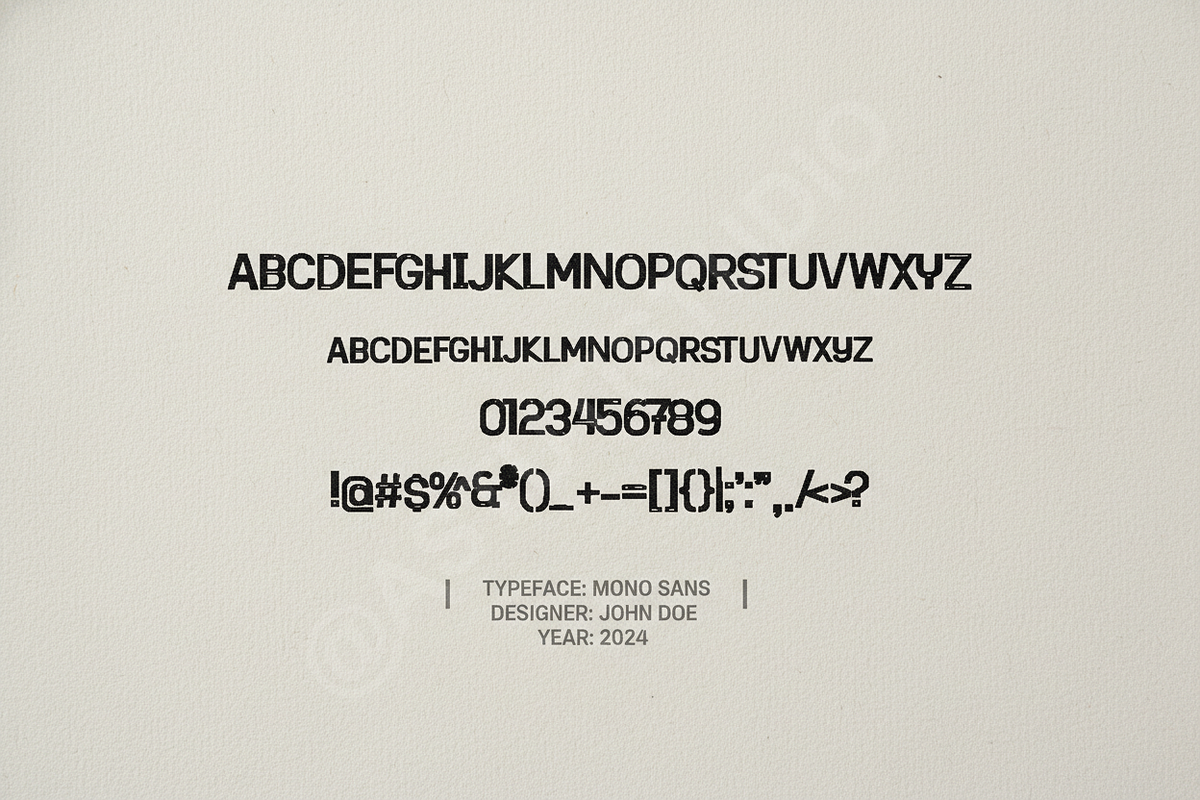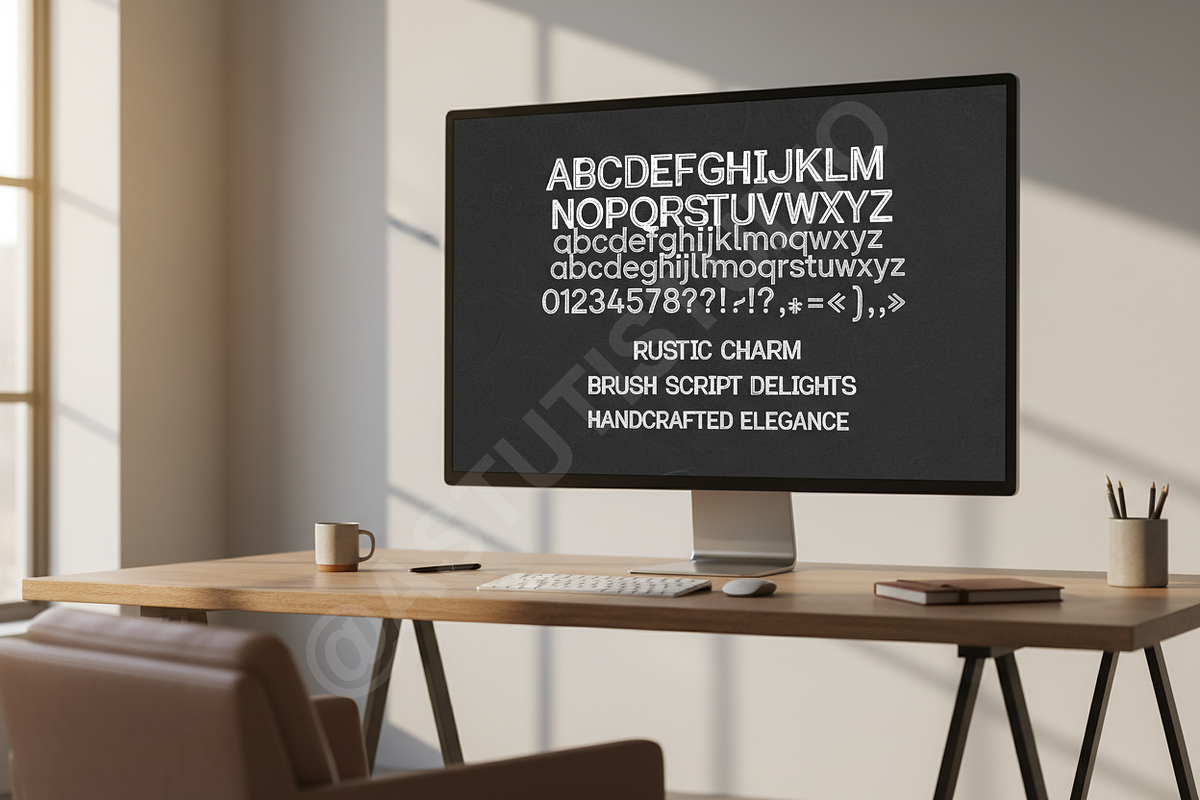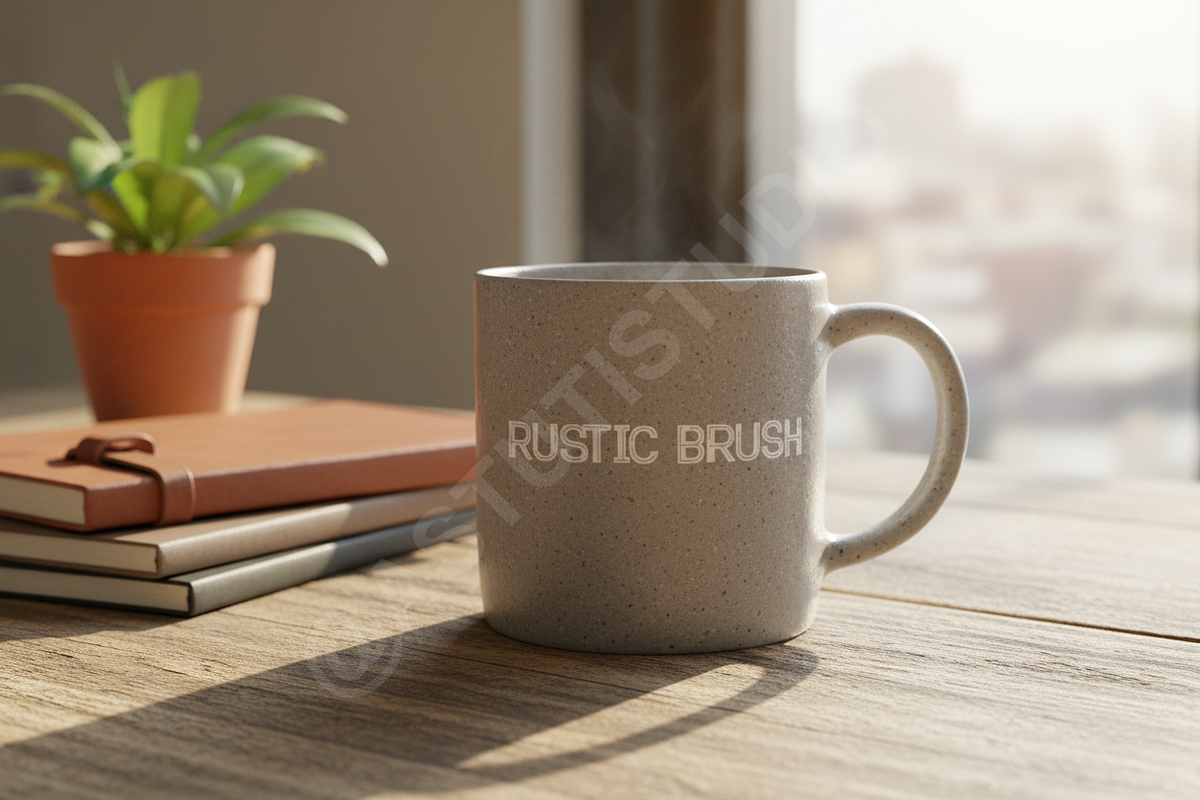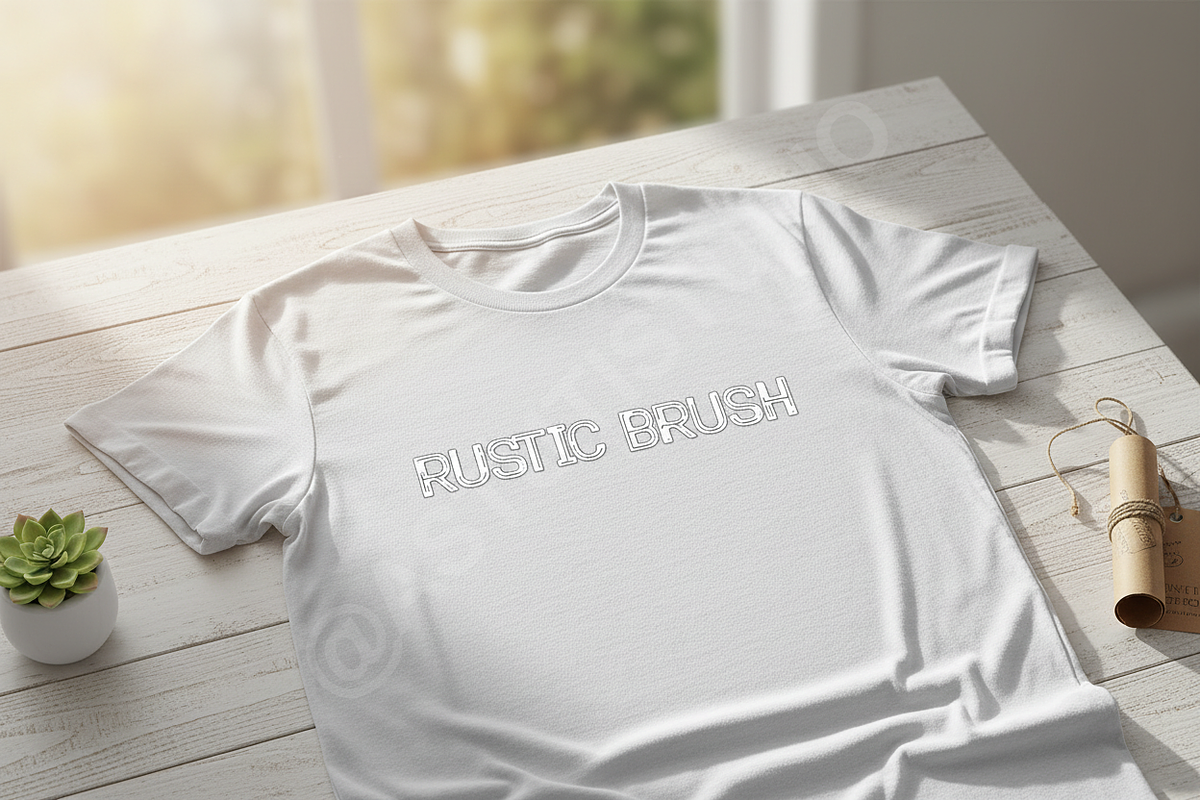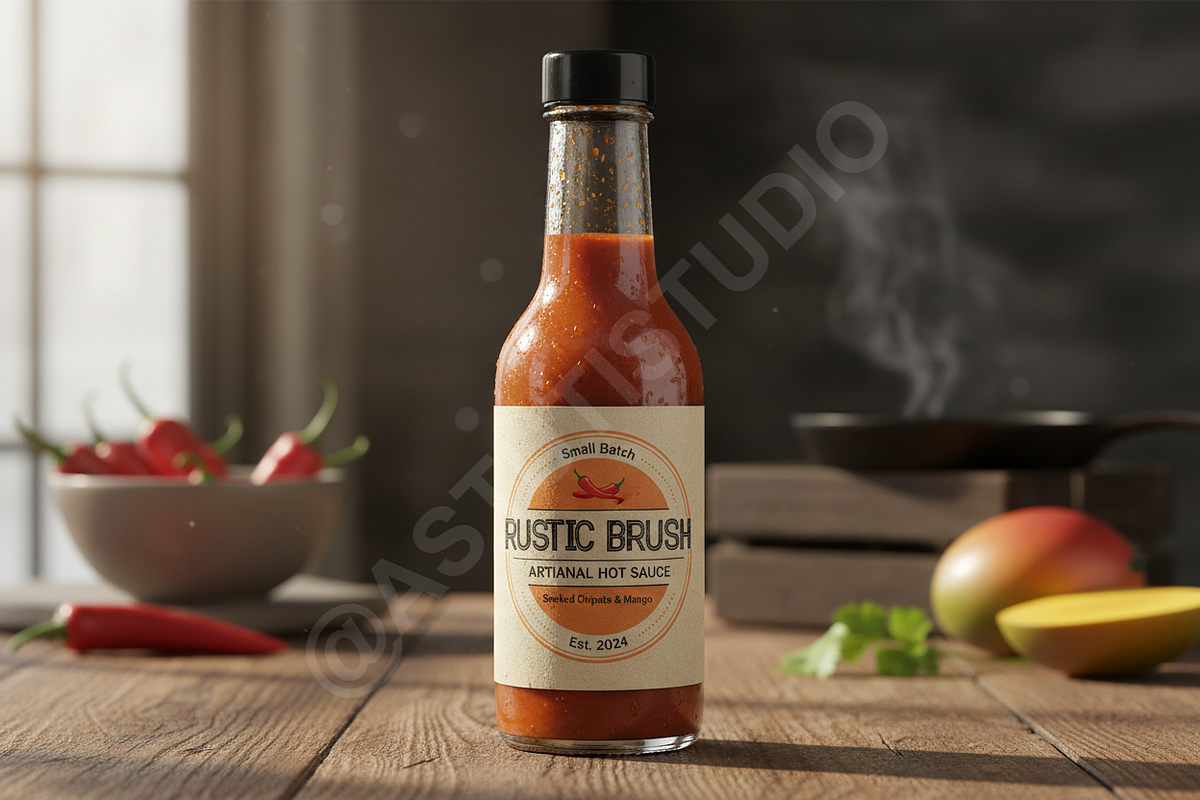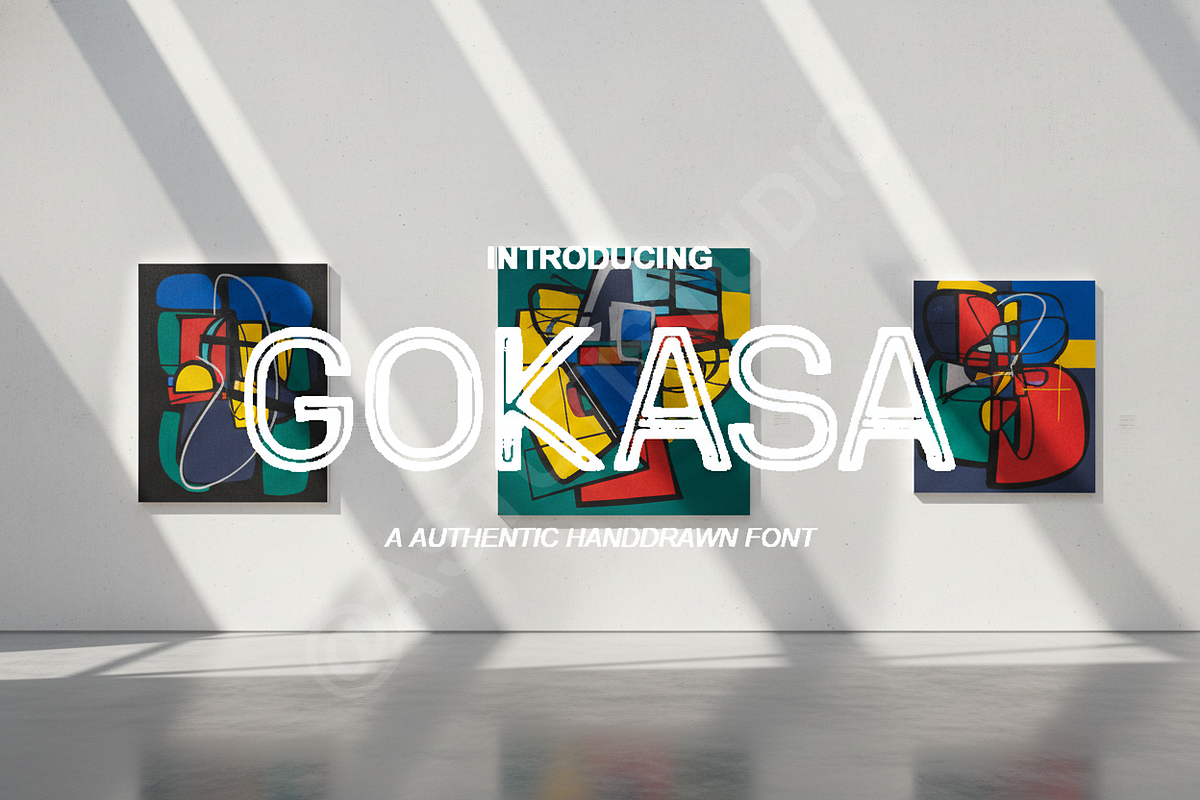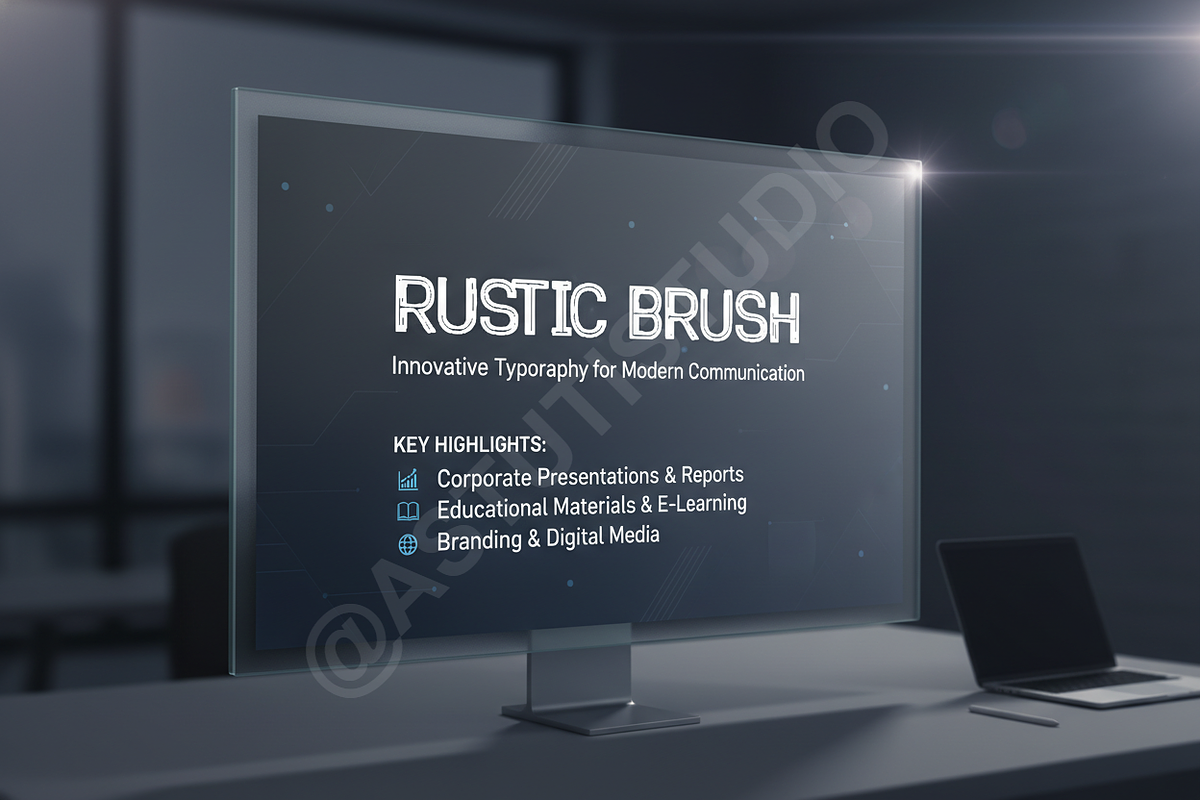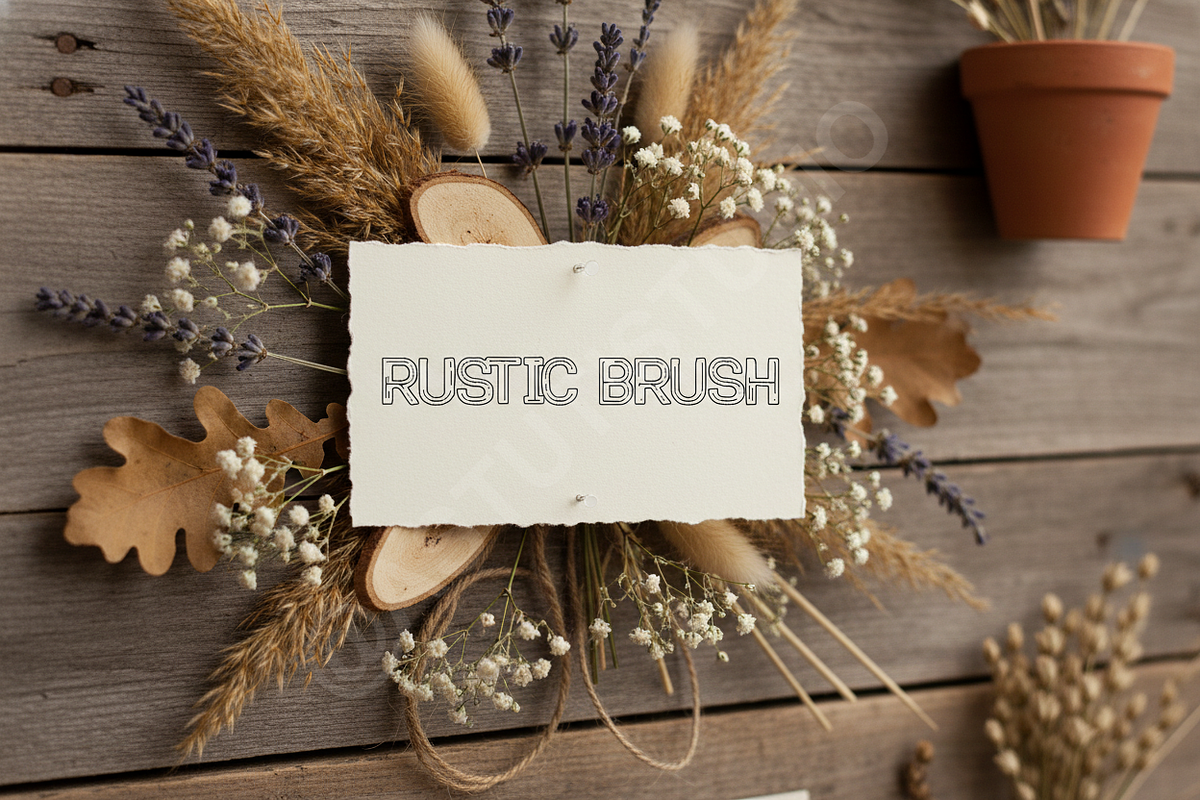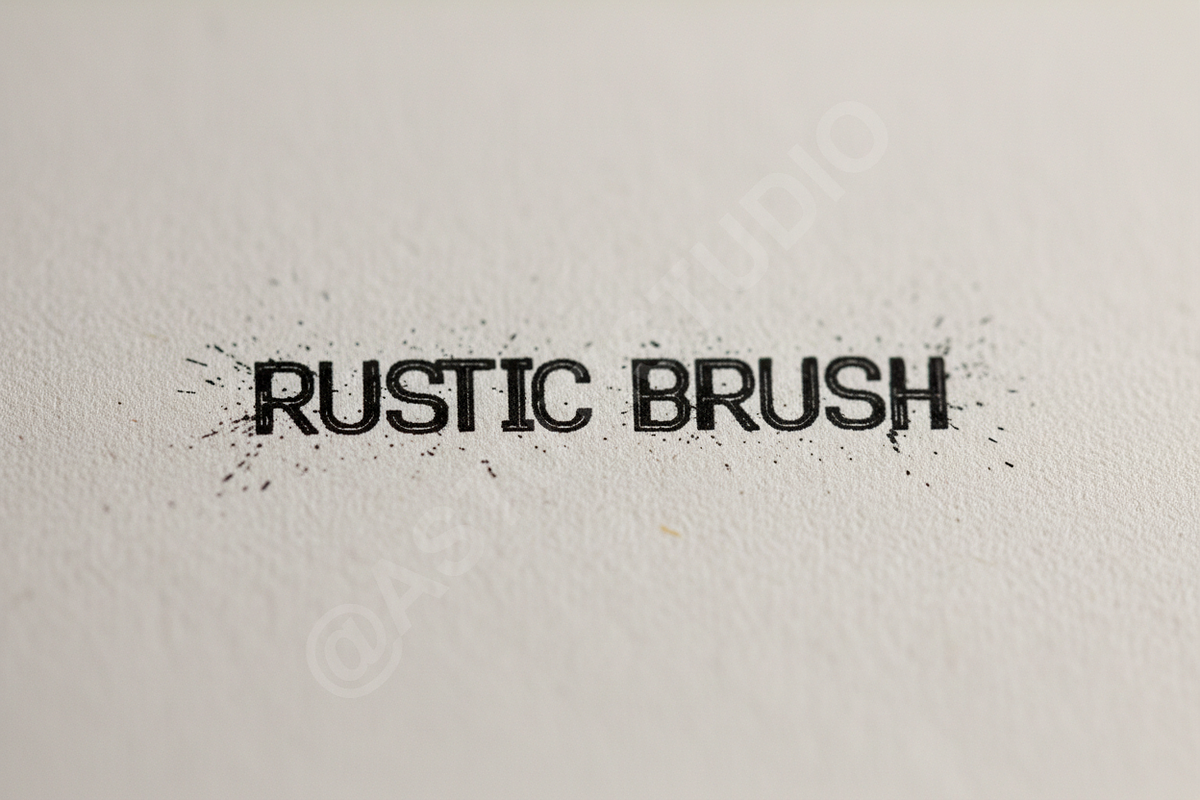
Gokasa - Elegant Serif Font for Luxu
Introduction:
Introducing Gokasa, an exquisite serif typeface meticulously crafted to embody sophistication and timeless elegance. Designed as a premium studio product, Gokasa offers a harmonious blend of classic charm and modern refinement, making it the ultimate choice for elevating your creative projects. It is perfectly suited for luxury branding, high-end editorial layouts, impactful social media graphics, refined invitations, and bespoke packaging.
- Elegant Ligatures: Beautifully crafted ligatures provide seamless letter connections for a polished look.
- Extensive Character Set: Supports a wide range of international languages, ensuring global appeal.
- Optimal Kerning & Spacing: Professionally adjusted for impeccable readability and aesthetic balance.
- Versatile Applications: Ideal for headlines, body text, logos, and intricate design elements.